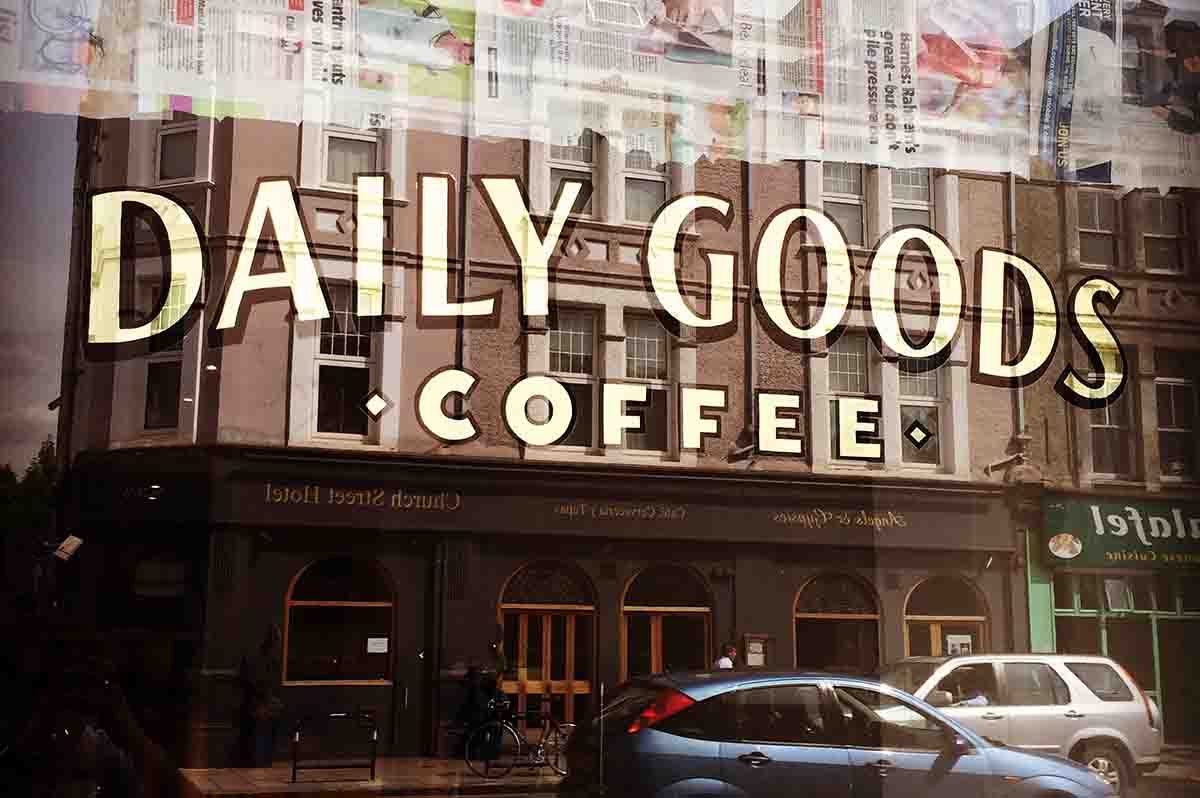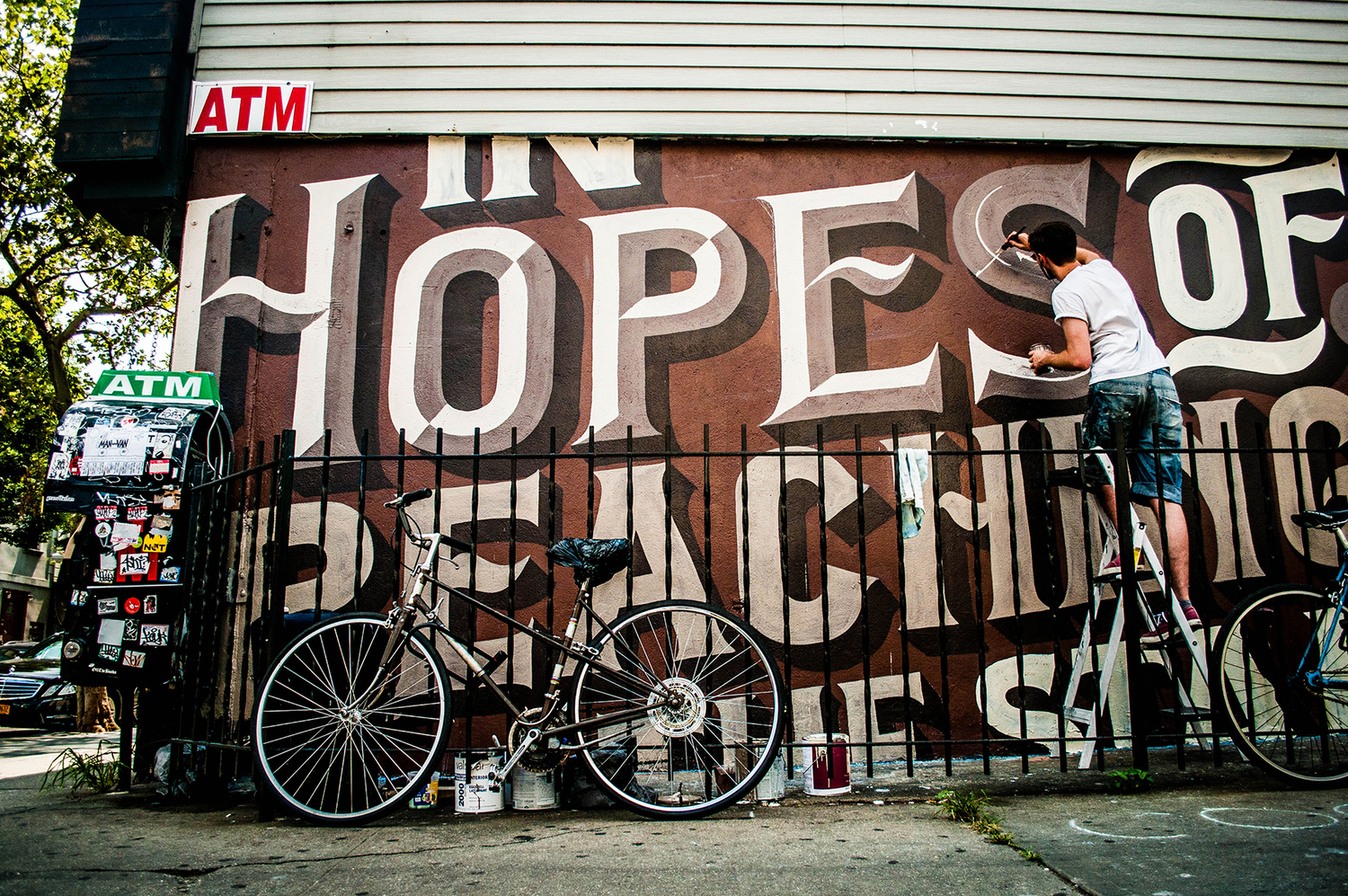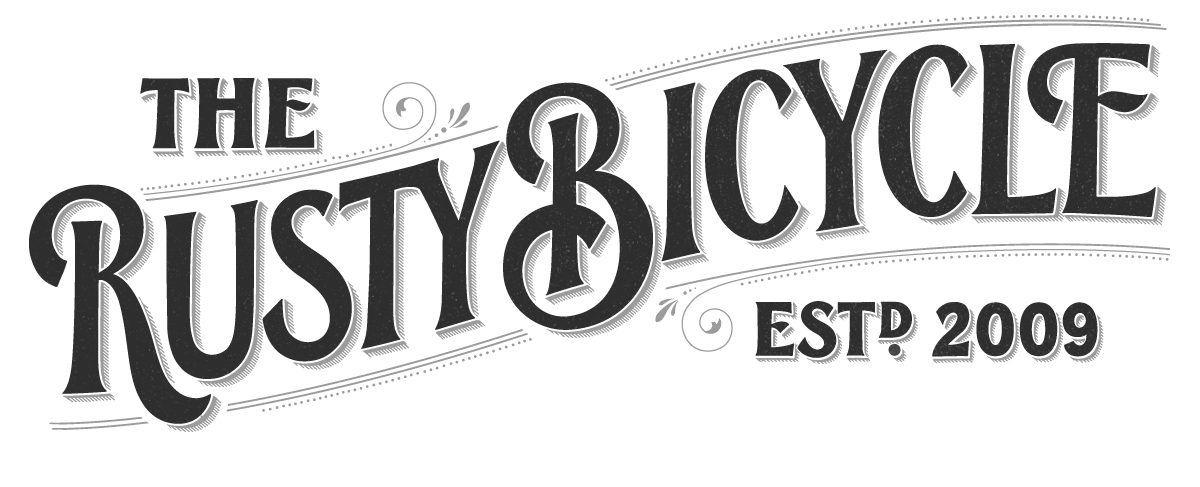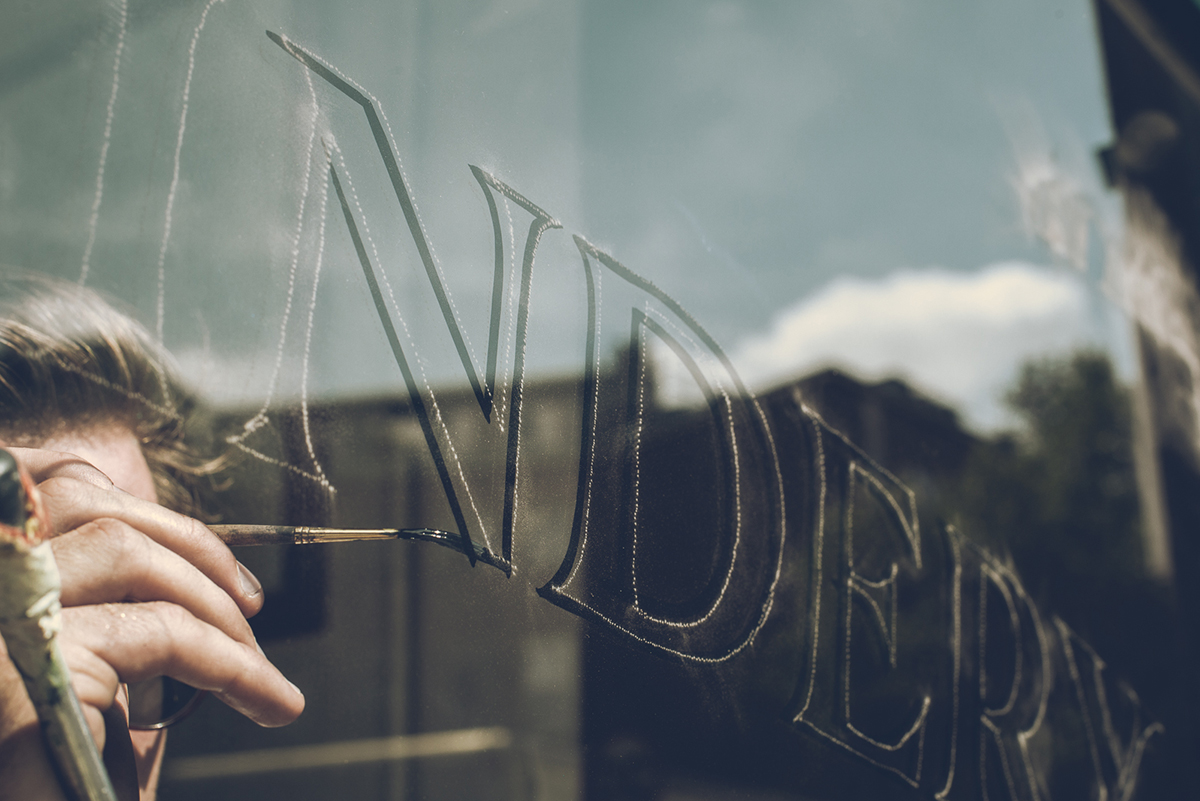
Lettering Legend - Ged Palmer Interview
Ged Palmer has built up a number of lettering skills over the past twelve years throughout his hand lettering career, including calligraphy, sign painting and typography. Ged is primarily based in London and has also completed lettering works across the globe. He has worked with some significant clients including Microsoft and Philips. He has also been recognised by both the Type Directors Club and the International Society of Typographic Designers. Without a shadow of doubt he is a 'Lettering Legend'.
Although sign painting is significantly less common nowadays than it once was one hundred years ago, Ged has been helping to keep the art alive and known, doing it justice by using unique creativity and by using his diverse talent. There can be so many more risks involved when it comes to sign painting. If you get something wrong it can be a lot harder to fix than a piece of lettering on paper, which in many cases you know you can re-trace or tweak in Photoshop down the line. If you get a large sign wrong it can mean a lot of additional work or starting again from the beginning, so it's really worth taking some time to appreciate the work that's involved with sign painting.
Ged talks about the differences between lettering on paper and lettering signs. He discusses working at a large scale, the tools he uses and more in the interview just below.
If you could sneakily replace some of London’s everyday signage with your own hand painted signs, what would you replace and why?
"There are a few old Funeral Directors around the place that are really old school. I would love to get a job where I could do a glass fascia with gilded blackletter and maybe some faux marbling on it or something. That would look pretty ace. Nothing worse than a budget funeral director sign made out of plastic with cartoony lettering right? Just down right disrespectful, that's what it is."
Some of the lettering work you do is on paper and some of the work you do is sign painting, what are the major differences between working on paper and painting signs?
"All of my work starts with a sketch. My work used to be predominantly lettering and calligraphy when I started out, as I was working on logotypes and book covers and that kind of thing. Picking up brush really changed the game for me. There is a reason people have been using brushes for lettering since roman times - they have that swing that gives a natural look!"
Does it ever get confusing when painting lettering backwards on glass windows, or is it something that you have got used to doing? I’d imagine you have to reverse thick and thin brush strokes?
"Yup, it can be a little bewildering. Then again lettering with a brush is really a series of strokes with different gestures, so once you've got the basic idea of it then you can use those rules to do things the other way around."
Some lettering artists have been known to use projectors to transfer their lettering when it’s being scaled up. Do you use any special techniques for transferring your lettering from a sketch to a sign?
"Indeed, I normally scan my sketches and then blow them up on a wide format printer. Projecting is way cheaper but flapping about with getting it all straight is really time consuming. I am really enjoying turning up to do smaller jobs with no patterns these days, just a wax pencil and a brush!"
Are there any types of brush you'd recommend for those wanting to start a sign painting journey, or any that artists should definitely avoid?
"A S Handover have got the goods. Their 2112 brushes are among my favourites."
Is it best to be comfortable at lots of different styles of lettering or develop your own style?
"For my money I don't believe there is any such thing as a personal style in lettering. The roman alphabet is 2000 years old and has gone pretty much unchanged since then. Nearly all lettering styles are derivitive of either script, block and roman styles. For me it's all about choosing something that works for the job and not pushing your own tastes too much."
What advice or tips would you give those first starting out at lettering?
"Learn calligraphy. Calligraphy is the written letter and lettering is the drawn letter. To learn how to draw letters you first have to learn how to write them!"